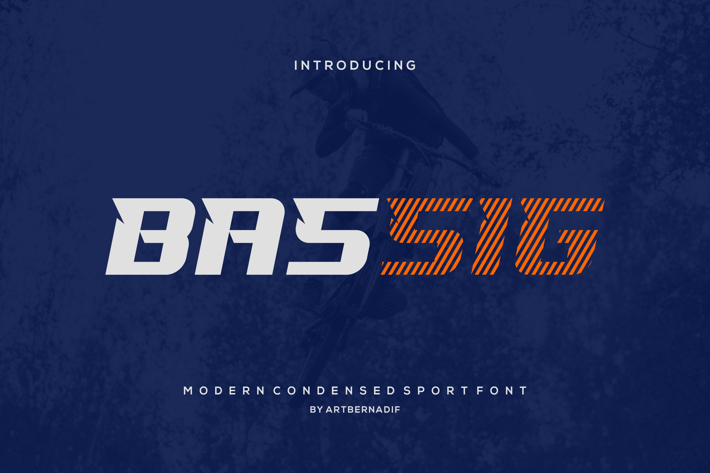
Bassig - Modern Condensed Sport Font
Introducing our new product Bassig Font Modern Condensed Sport Font
Bassig Font Modern Font is a bold and authentic display font. The font is suitable for any branding project like logo, t-shirt printing, esport, and many more.
outstanding in a wide range of contexts.
Bassig Uppercase
* Bassig Alternate